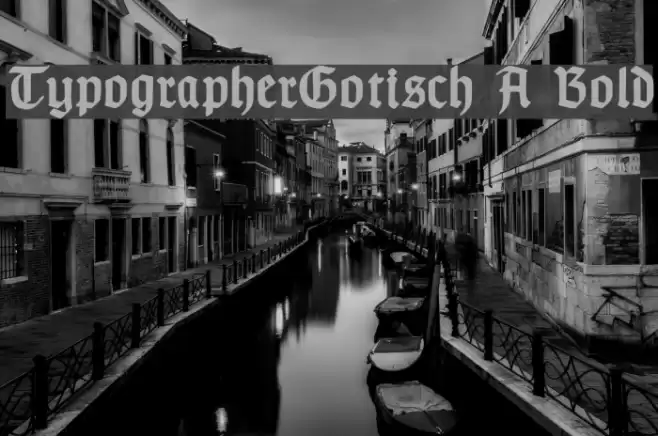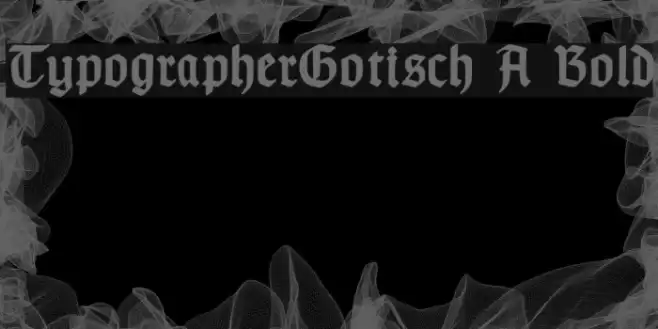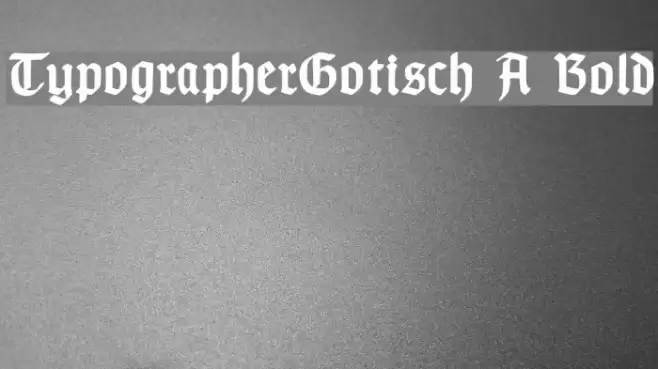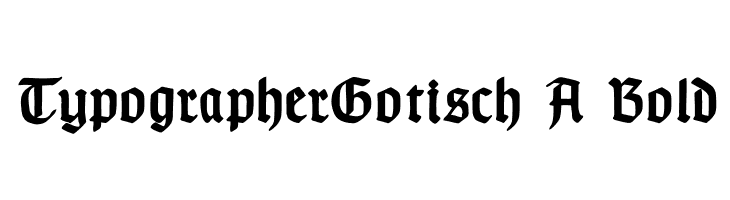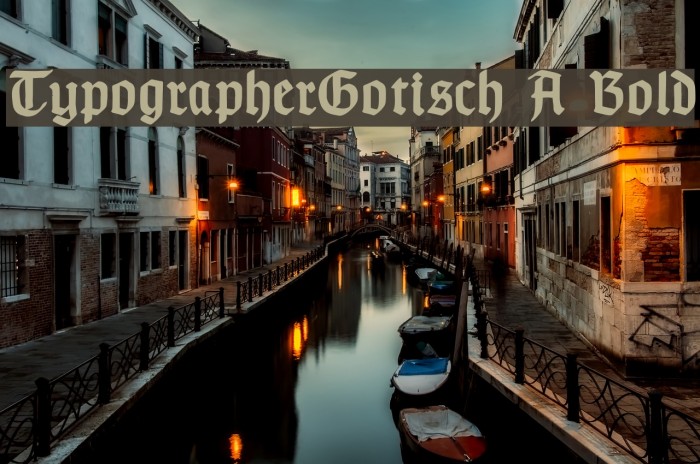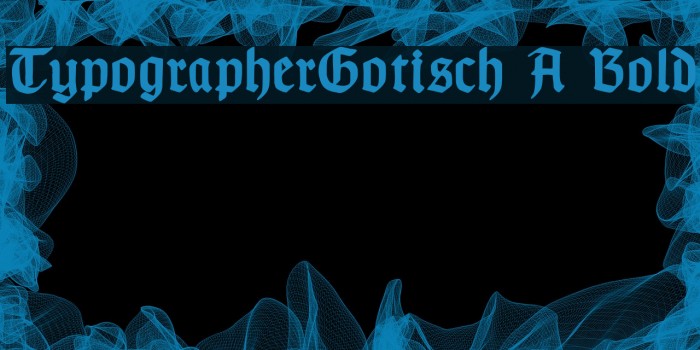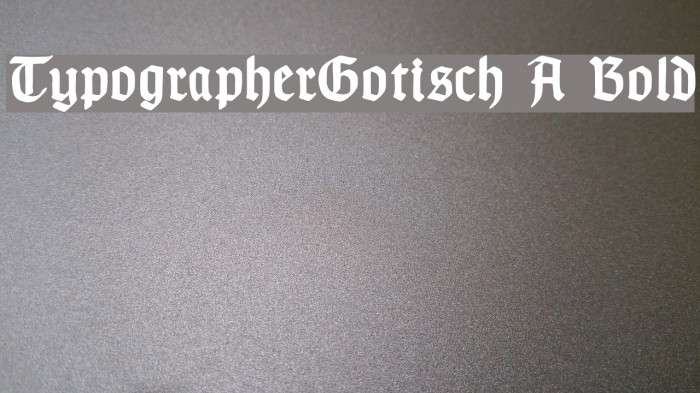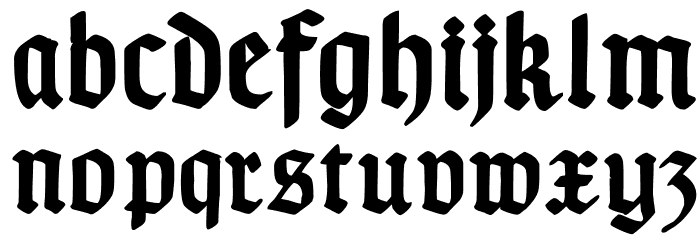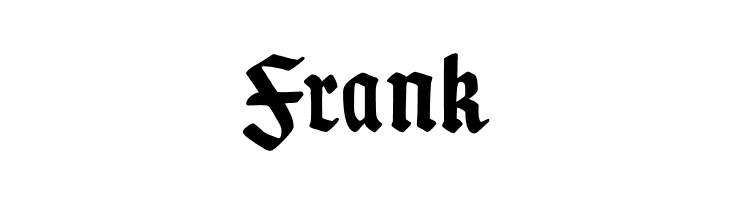
TypographerGotisch A Bold Font
TypographerGotisch A Bold Description
This font exhibits a traditional blackletter style, characterized by its ornate and intricate letterforms. The uppercase letters feature sharp, angular lines with pronounced serifs, while the lowercase letters maintain a consistent flow with a slightly more rounded appearance. The numerals are bold and distinct, complementing the overall gothic aesthetic. Special characters are designed with the same attention to detail, ensuring a cohesive look across all glyphs. This font's bold presence makes it ideal for projects that require a historical or medieval touch.
A bold, blackletter font with intricate, gothic-inspired letterforms from Uncategorized fonts.
- Proposed Projects: Ideal for historical documents, medieval-themed designs, book covers, posters, and branding that requires a classic gothic touch.
- Overall Style: Vintage
- Use Case: Logos, Headlines, Decorative text